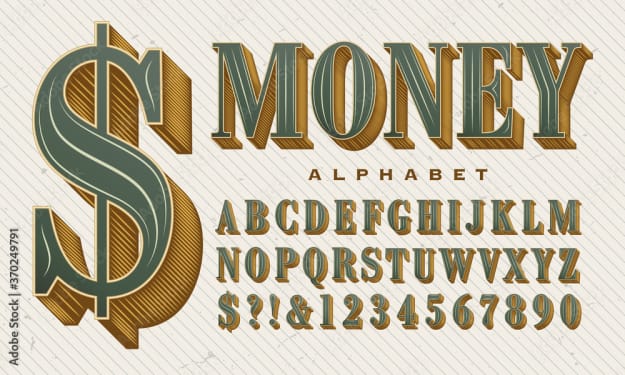
7 All Caps Font for Best Display: Noticeable and Remain Forever
All Caps Font for Best Display
Capital letters are one of the most frequently used on many occasions. Some people choose to use the all-caps font as content in their designs. Not only are they great at attracting people’s attention, but also they feature high readability. So, here are some unique capital letter references.
All Caps Font Best for Display
There are many beautiful caps fonts that you can find on display. If you need a design with noticeable writing, then some of these capital fonts are for you.
1. Mothem
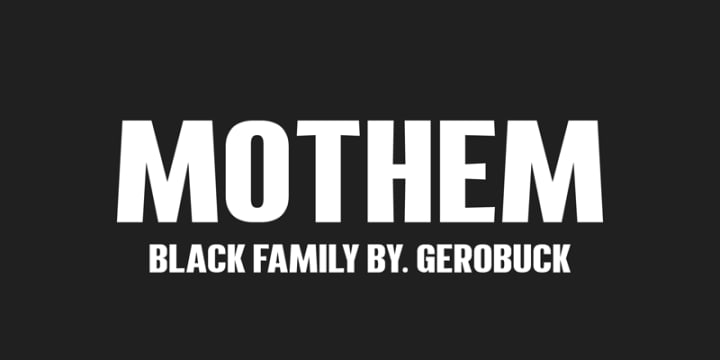
All caps fonts that are most widely used are bold font types. Mothem is one of the most common capital fonts we encounter. A basic serif font style with a bolder theme gives a firm and straightforward appearance. Meanwhile, people tend to create a great design with a bold capital font like this.
You will find bold letters in various types of designs. But this type of alphabet would give a firm, strong, and manly impression.
2. Beauty Culture
Seeing the fonts from Beauty Culture might remind us a little of the headlines that are exposed on the front pages of business and fashion magazines. This font collection includes a type of sans serif inspired by magazines and various beauty and fashion brands.
On the other hand, if you pay attention to the design of each letter, it has many capital forms while maintaining an elegant value.
This is what makes many people tend to choose fonts like Beauty Culture for brands engaged in fashion and beauty lines. However, this collection is also suitable as an all caps font for display and to complement your design.
3. Sinoreta
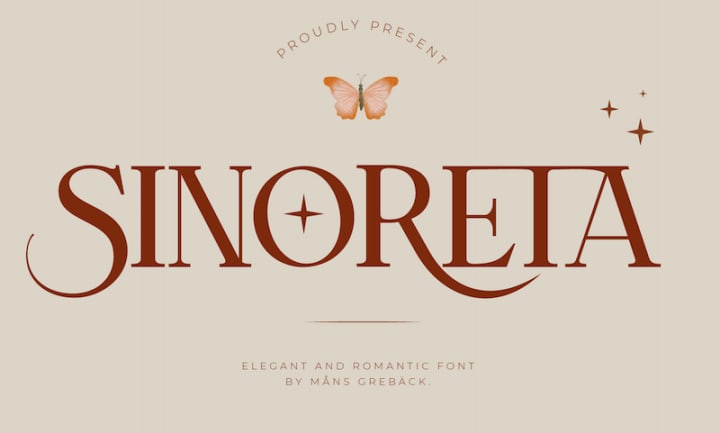
There is an elegant, beautiful, classic, and unique image in the font of Sinoreta. This capital font has unique characteristics that distinguish them from other designs.
It is because the Sinoreta font collection does not only focus on large capital letters but also on the aesthetic value that we can find from the curves. Additional accents on some of the symbols in the letters also give a deeper impression to anyone who sees them.
3. Dream Glory
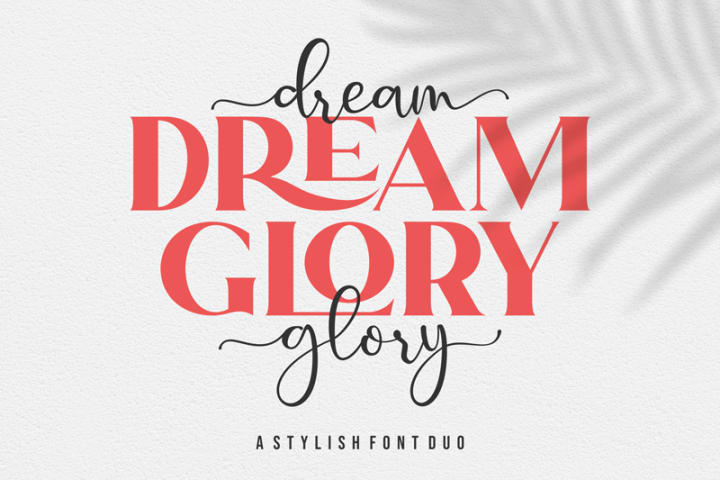
If you are looking for a simple all-caps font that doesn’t put aside its aesthetic value, then this font from Dream Glory can be the best recommendation. This is evident from the design of the beautiful capital letters. Dream Glory is included in the basic serif alphabet category, which then develops into a more beautiful semi-bold style.
Interestingly, this font has a basic style, a bit casual but also looks grand. As a result, each capital letter of this font is compatible with various design themes.
4. Pumpkin Cheesecake
Who says that capital letters are always inflexible and too formal? Not all-caps fonts have a strong feel and even tend to be stiff. If you take a look at this font from Pumpkin Cheesecake, then you’ll notice that there’s a lot of exploration of the capital letter itself. The font for Pumpkin Cheesecake is a type of script alphabet.
When you take a closer look, this collection of Pumpkin Cheesecake letters is also inspired by handwriting fonts, but in all capital letters.
6. Santiago Vintage Monoline
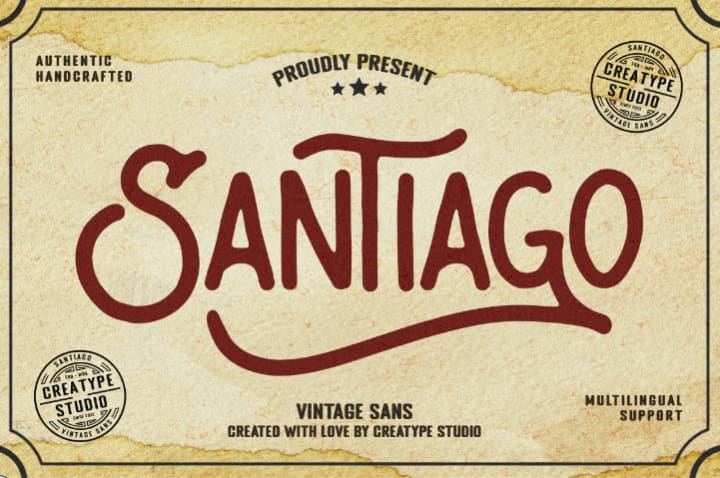
How you choose a font influences your eccentric design. If you are interested in applying a typeface font that retains a vintage look, then this is what you need. Santiago Vintage Monoline has a distinctively vintage design and edgy look.
The collection of alphabets reminds us of the appearance of typical Mexican letters, which gives the impression of being old but also beautiful. Therefore, you can write the headlines impressively to attract your reader impactfully.
7. Vantage Retro Funk
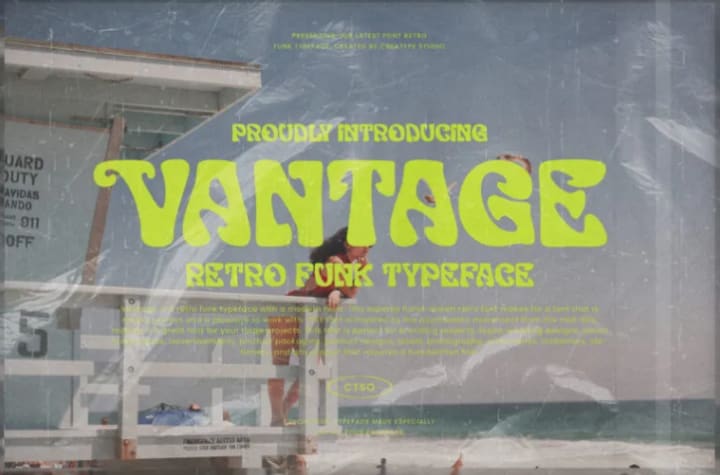
Another all-caps font with a vintage look that is no less interesting is the Vantage Retro Funk font. This Vantage Retro Funk font look is very special. Why?
That’s because of the eccentric style of each letter, reminiscent of old letter designs like 70’s posters. Fonts that are bold but asymmetrical make capital letters not always seem rigid and less stunning.
One Capital Font to Notice Forever
A good design traps the eye in the first three seconds and is memorized forever. If so, you should be able to choose which capital font is the best so that the design always rounds in the minds of the audience.